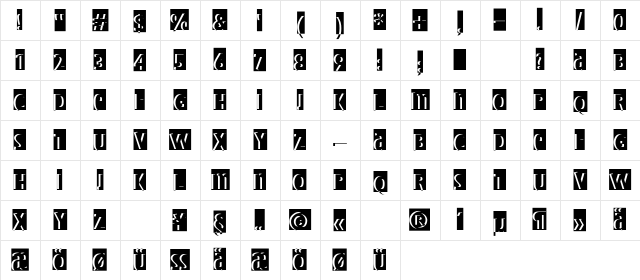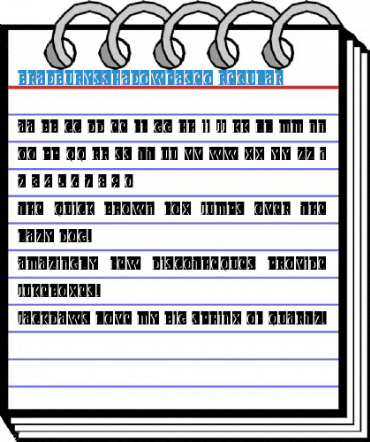
Complete BradburysShadowPaseo Regular glyph index. Displaying only characters natively supported by BradburysShadowPaseo Regular font.
BradburysShadowPaseo is built around its visual character rather than neutral utility - its distinctive forms are designed to make an impression at display sizes.
Suited to editorial headers, event branding, and any context where the font itself is part of the message.
Font Pairing: Pair with a clean neutral sans-serif for body copy to let BradburysShadowPaseo's character lead without overwhelming the composition.
Pro Tip: Use BradburysShadowPaseo exclusively at display sizes - it was designed to be seen, not read at length. Let a neutral companion handle body copy.